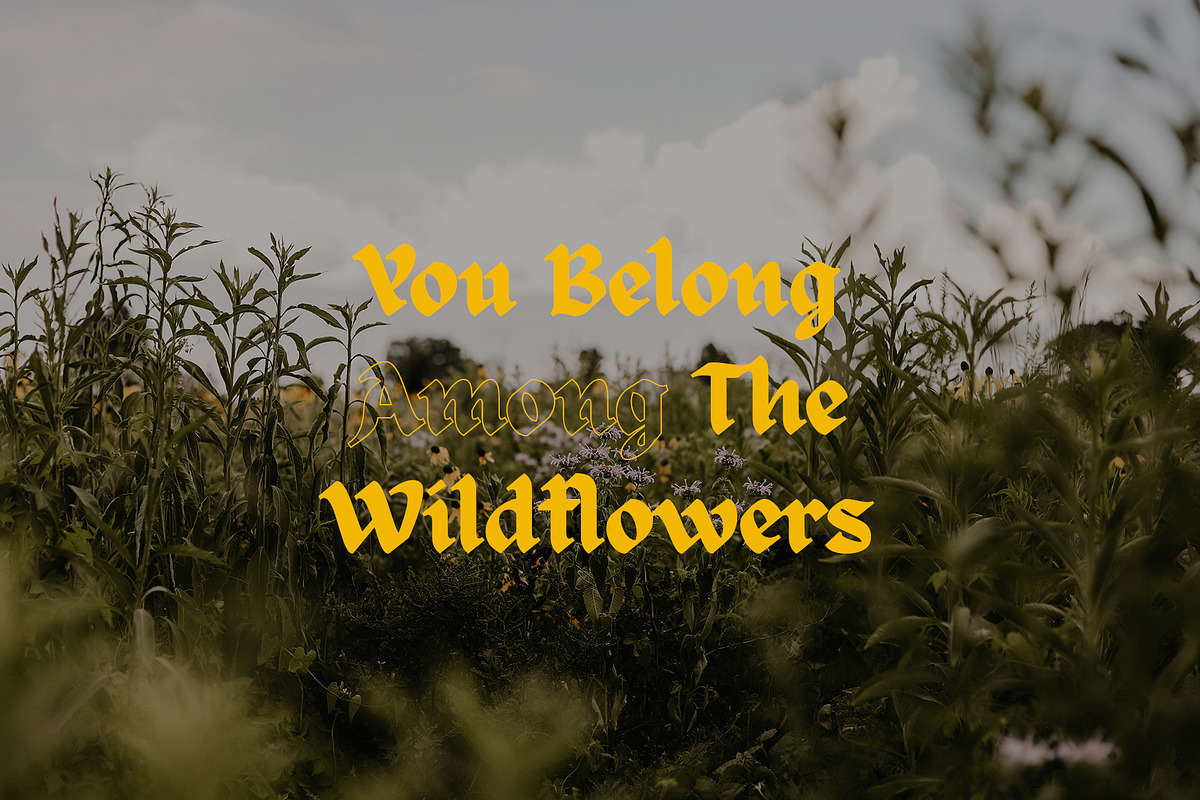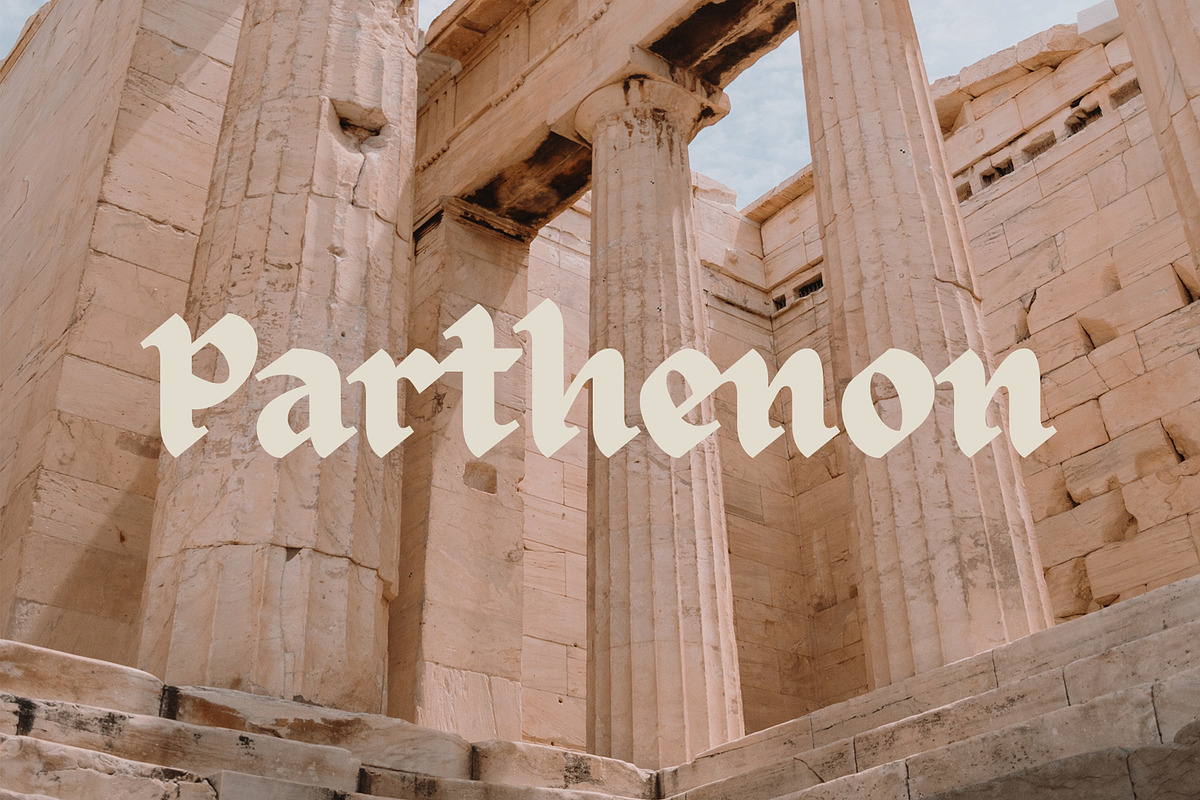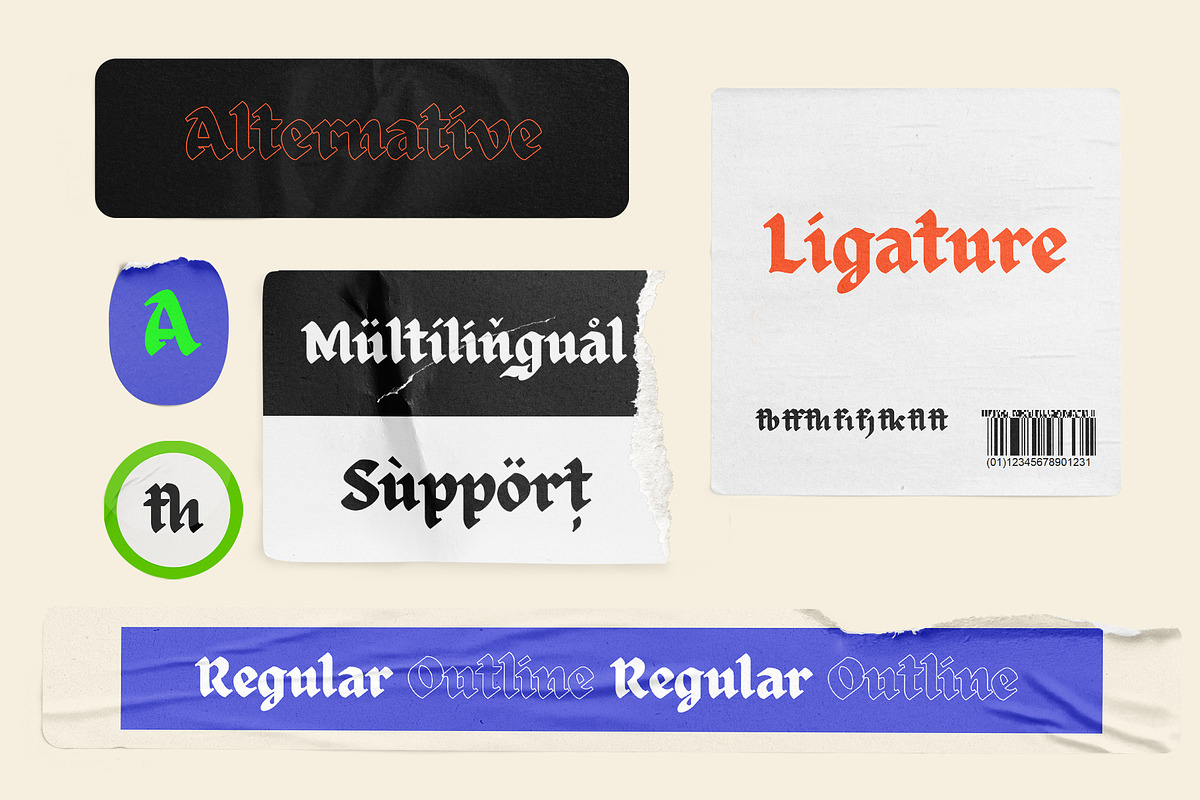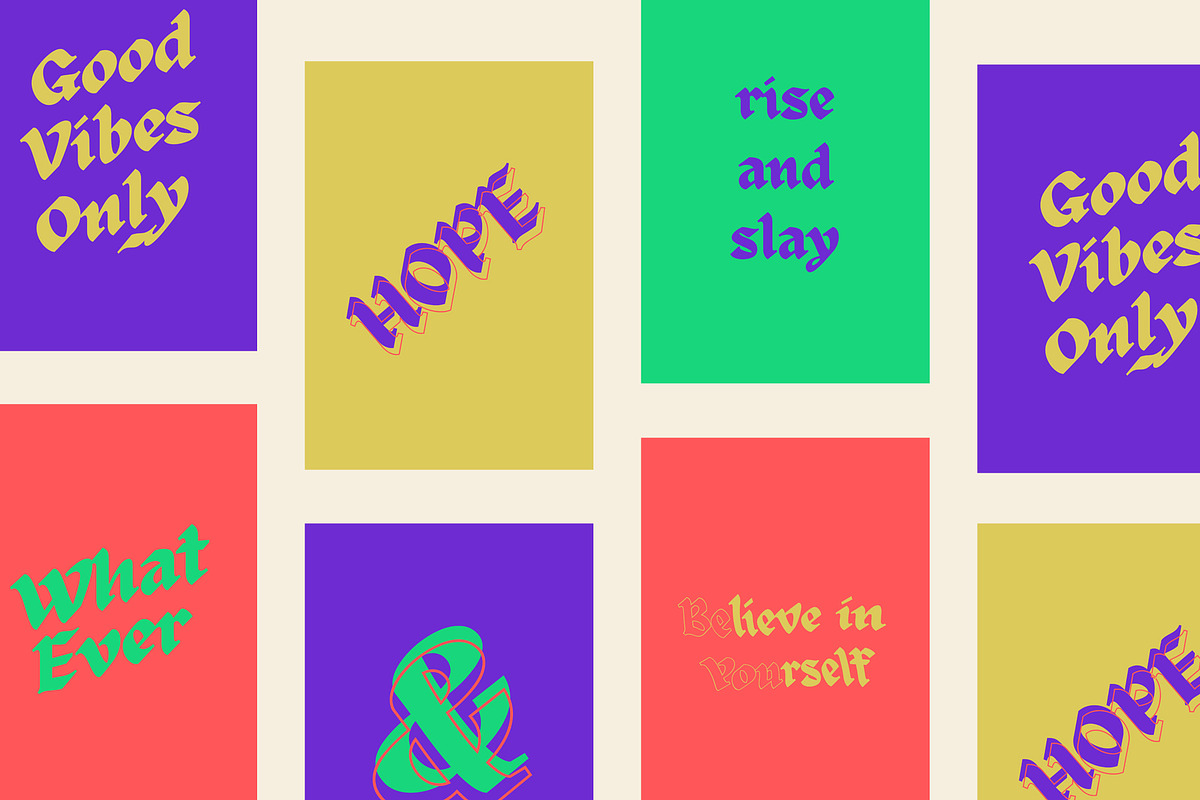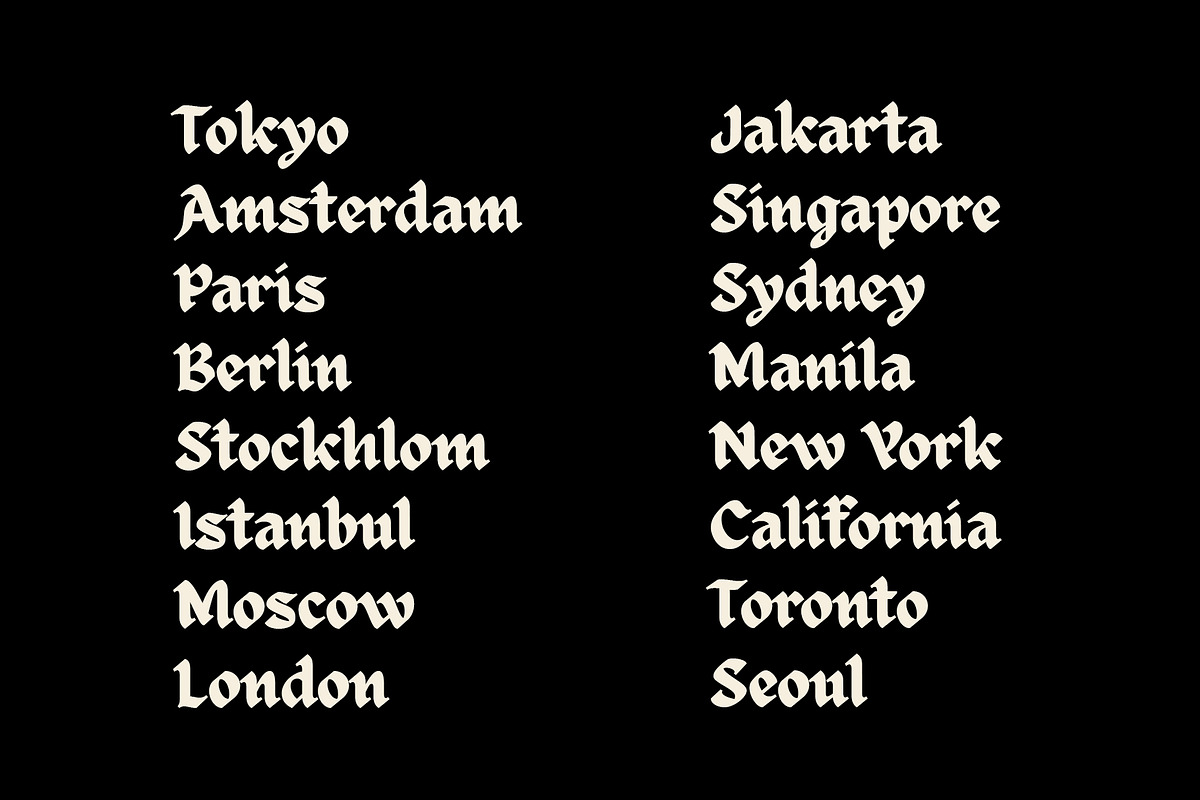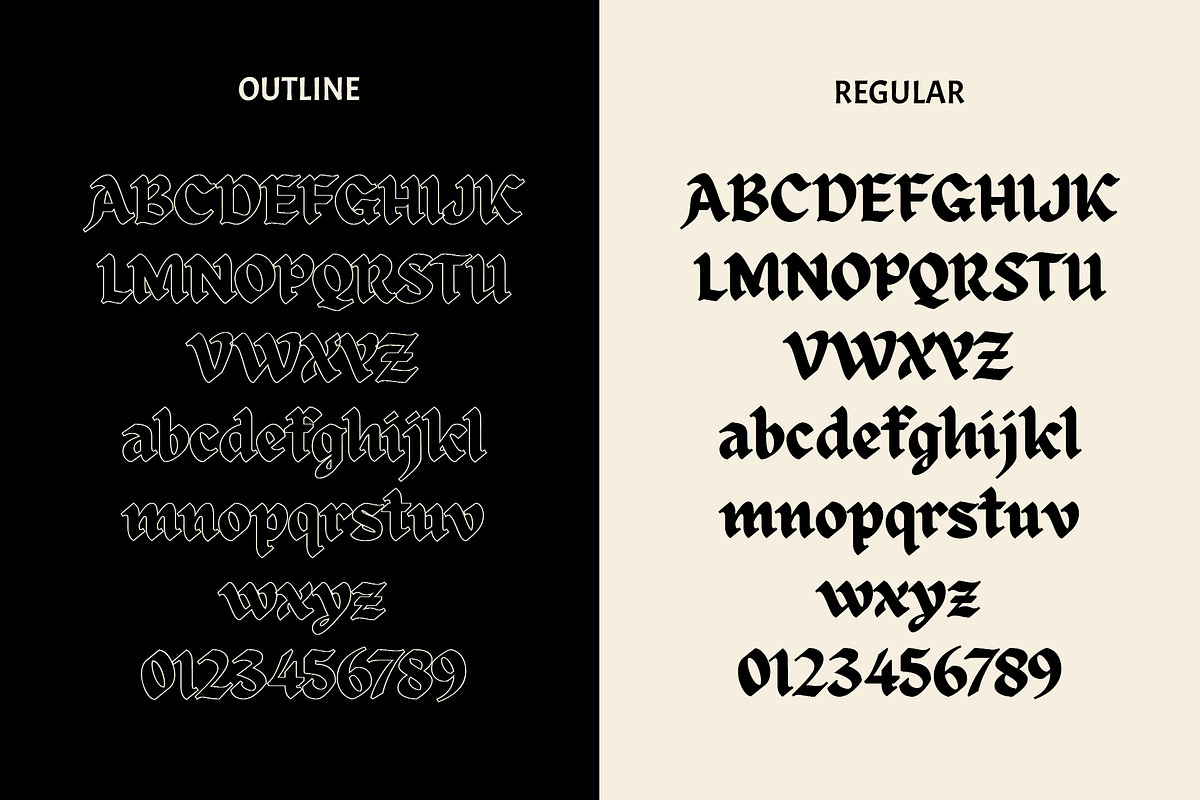
ED Celandine is a blackletter font that is designed in a modern style, minimalist and looks elegant, but doesn’t lose its classic look. This font is designed in 2 styles: regular and outline so that it can be easily applied and combined with other fonts.
This font creation idea was inspired by various feeds on Instagram, books, and some classic blackletter fonts. This font is equipped with various features such as Stylistic Set, multi-language support, and ligature. there are differences in the ligature in the outline style, to enhance the font.
It is perfect for use as poster designs, branding, logos, apparel (t-shirts, jackets, etc.), cards, tattoo, or other design needs.